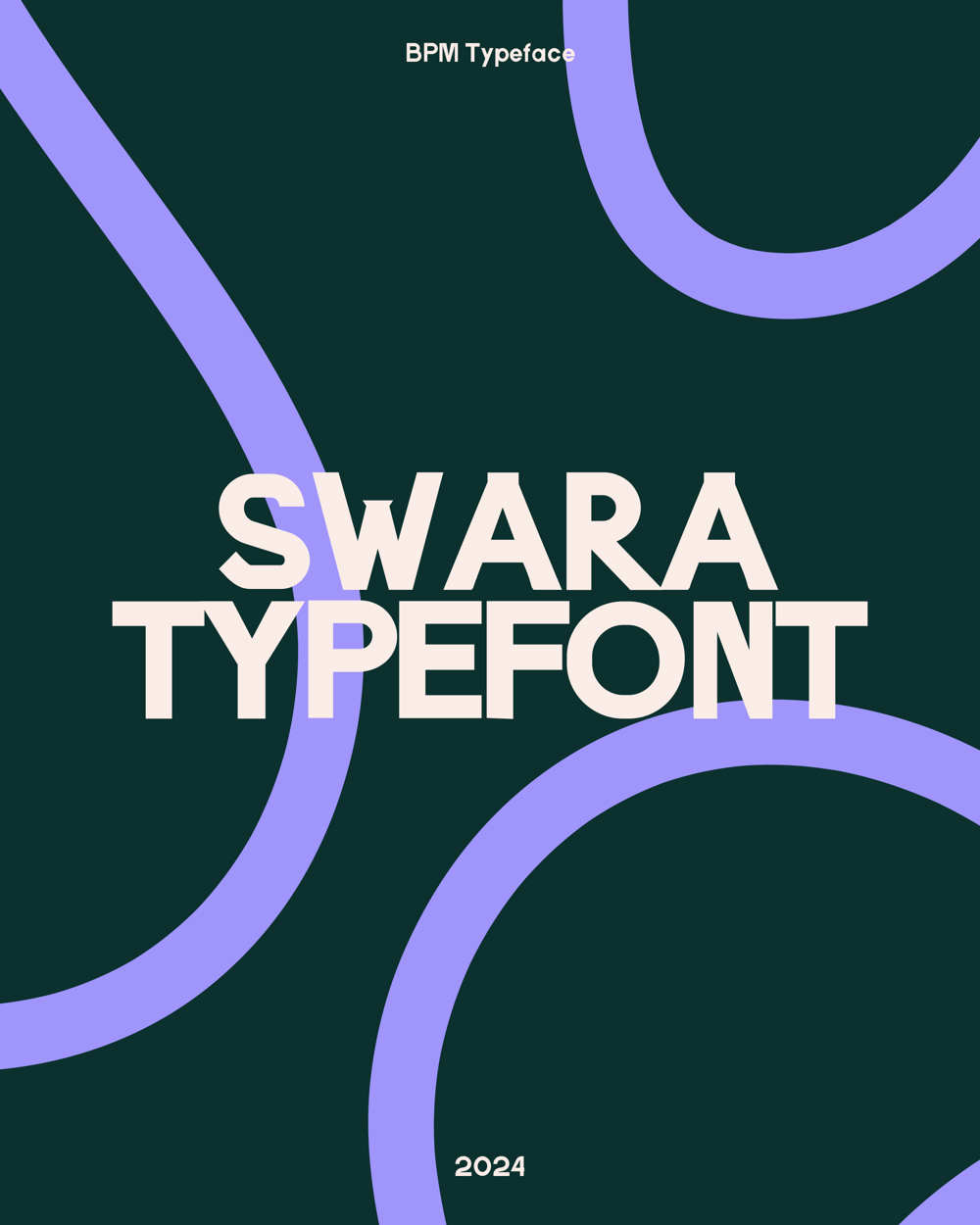
Swara Typefont Font Family was designed by Muhammad Jihad Aniq Hanif and published by Black Palaemon. Swara Typefont contains 6 styles and family package options. Swara Typeface is a sans-serif font inspired by the Javanese word “swara”, meaning “voice”. It’s designed to bring clarity and character to any creative project.With seven styles—Regular, Bold, Thin, Italic, Condensed, and Expand—Swara adapts effortlessly, whether for print, digital, or branding. Let it speak for your designs!